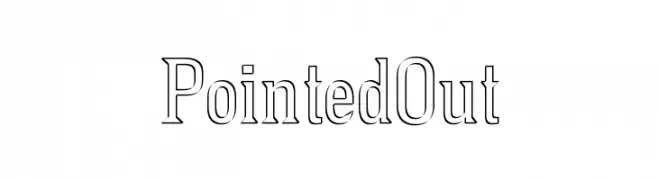
A serif font with sharp, pointed serifs and medium contrast, offering a bold and authoritative look.
A modern outline serif font with sharp, angular serifs and a three-dimensional effect.